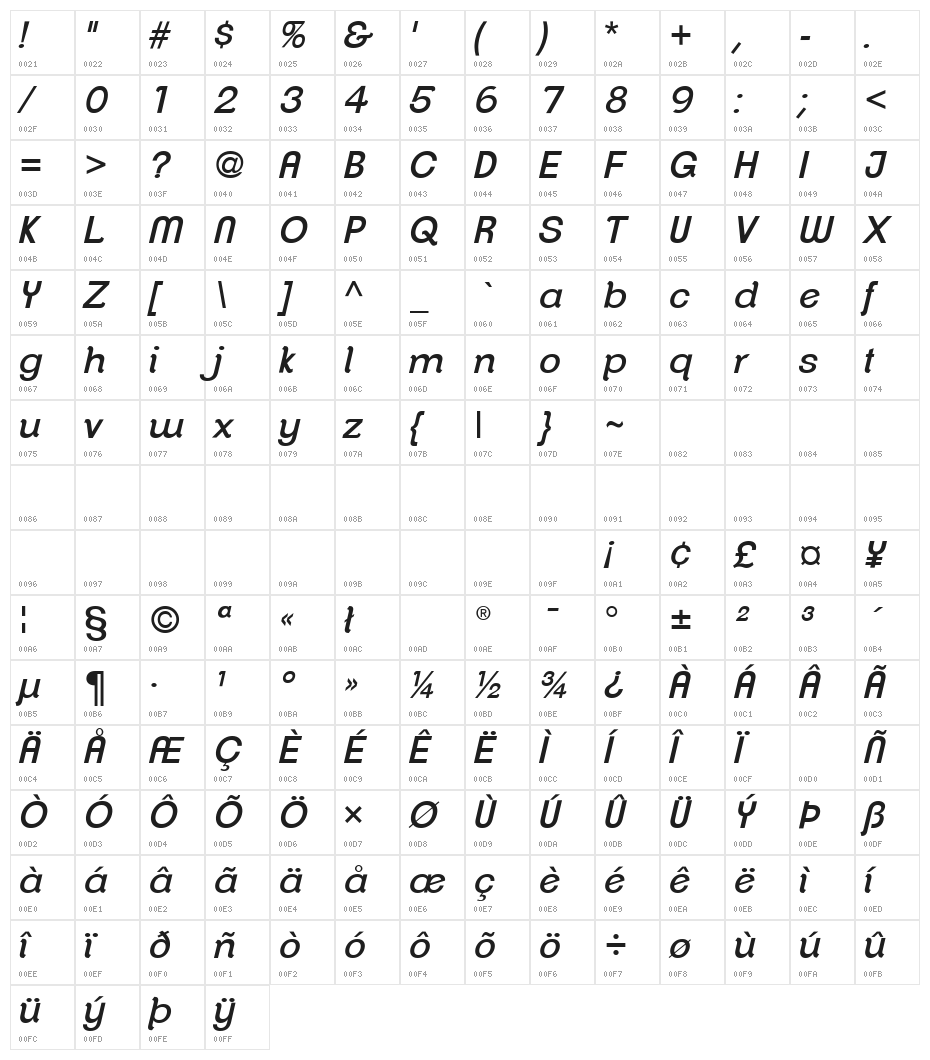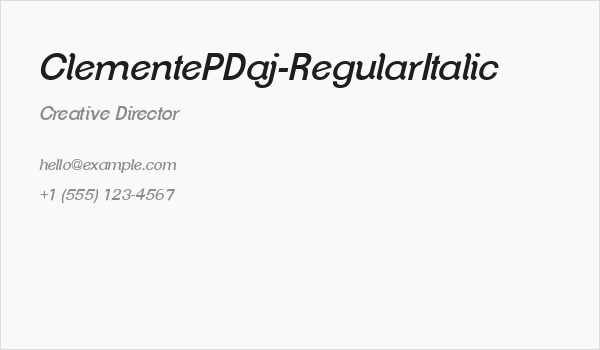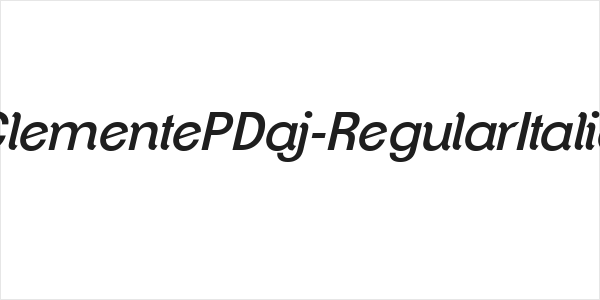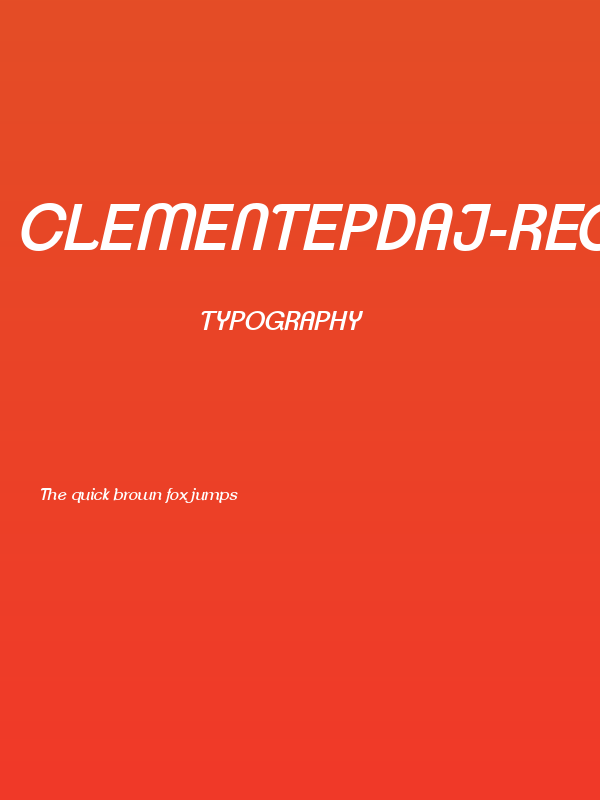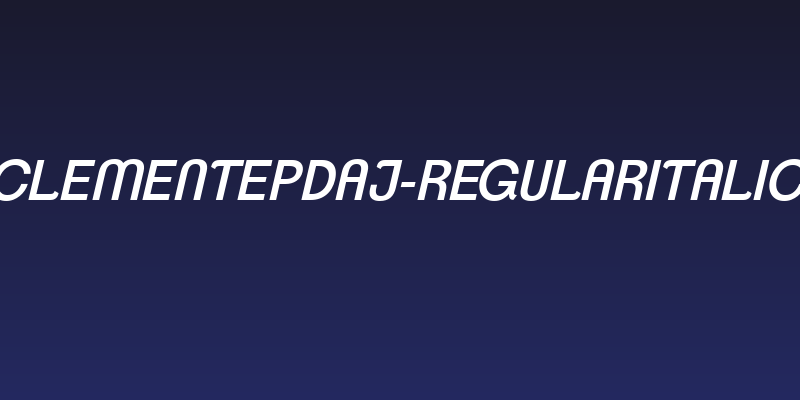
ClementePDaj-RegularItalic Font
ClementePDaj-RegularItalic Description
This font exhibits a sleek and modern aesthetic with a distinct italic slant, giving it a dynamic and forward-moving appearance. The characters are well-balanced, with smooth curves and a consistent stroke width that enhances readability. The uppercase letters maintain a uniform height, while the lowercase letters have a slightly rounded quality, adding a touch of softness to the overall design. The numerals are clear and easily distinguishable, making them suitable for various applications. Special characters are thoughtfully designed, ensuring they integrate seamlessly with the rest of the typeface. This font's style is versatile, making it suitable for both digital and print media.